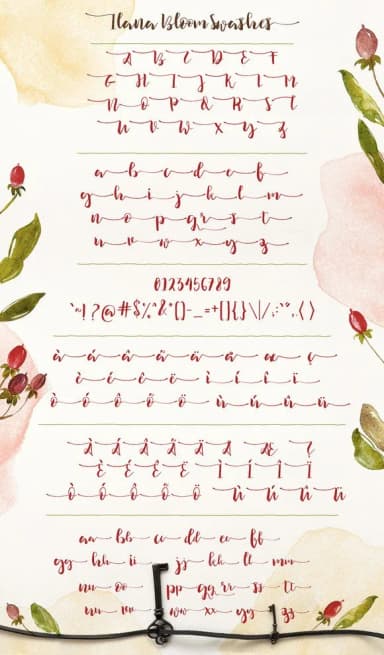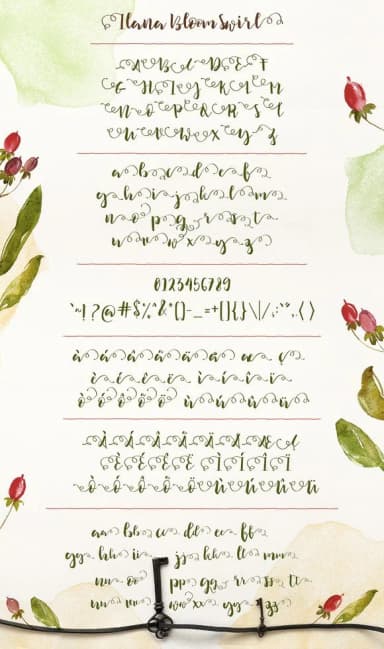
About Ilana Bloom Font
Ilana Bloom Font by Blue Robin Design Shop is a flowing handwritten script that captures the warmth of pen-and-paper lettering with contemporary polish. The typeface combines organic strokes with consistent letterforms, delivering both personality and legibility across a range of creative applications. Its natural rhythm feels inviting without sacrificing readability or professional presentation, making it suitable for projects that need genuine character.
This versatile script works beautifully for wedding invitation suites, where its graceful forms enhance formal announcements with an approachable quality that guests appreciate. It's equally suited for boutique skincare packaging and beauty labels seeking an artisanal aesthetic that communicates hand-crafted care and attention to detail. The font excels in creating personalized monogram designs and custom greeting cards that feel genuinely handwritten rather than mass-produced. It also pairs exceptionally well with Etsy product labels, where buyers appreciate the authenticity and craft suggested by hand-lettered styling.
Ilana Bloom Font is a script font that shines as a display or heading face. Pair it with a clean sans-serif or serif font for body text β the contrast creates a clear hierarchy while the two styles stay balanced and easy to read.